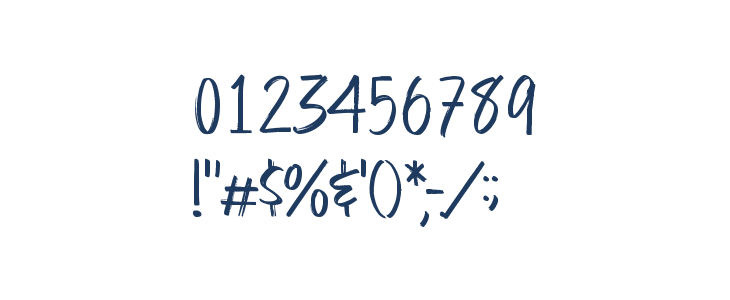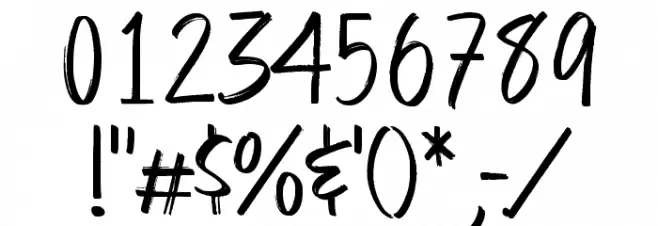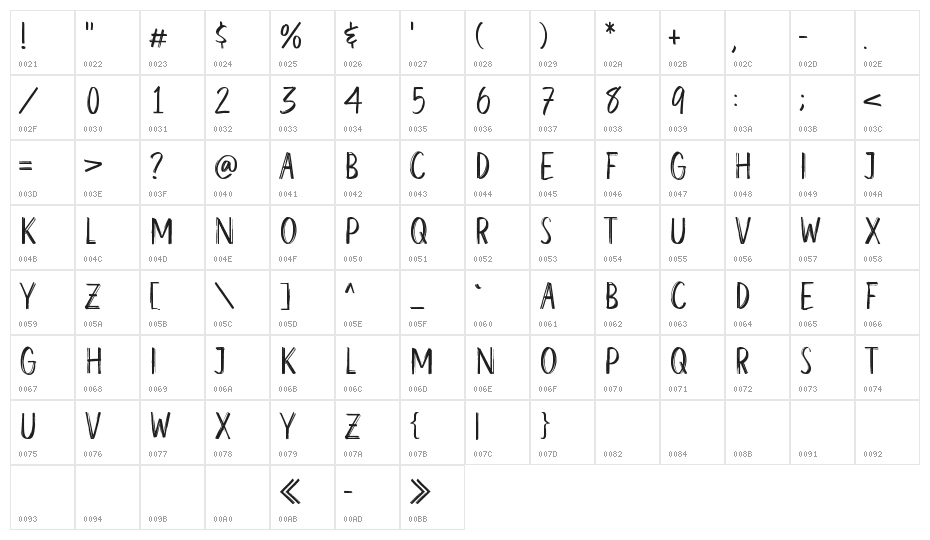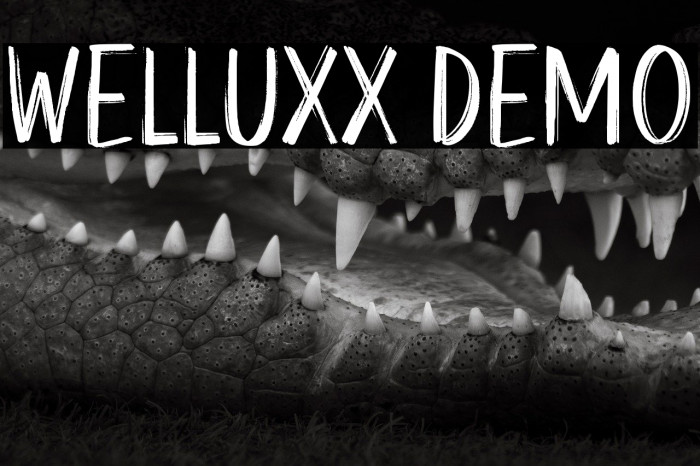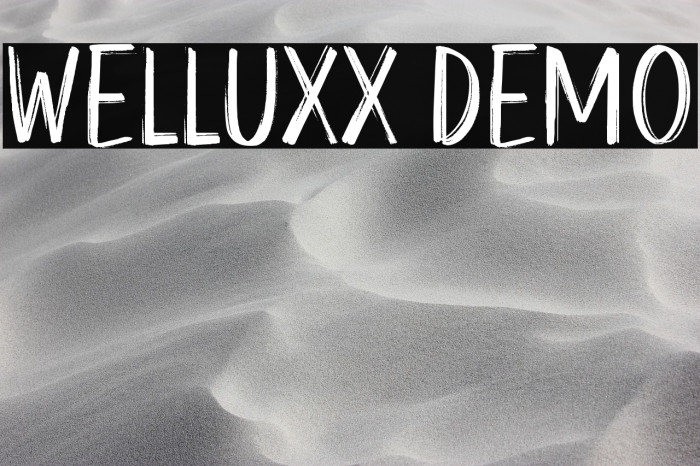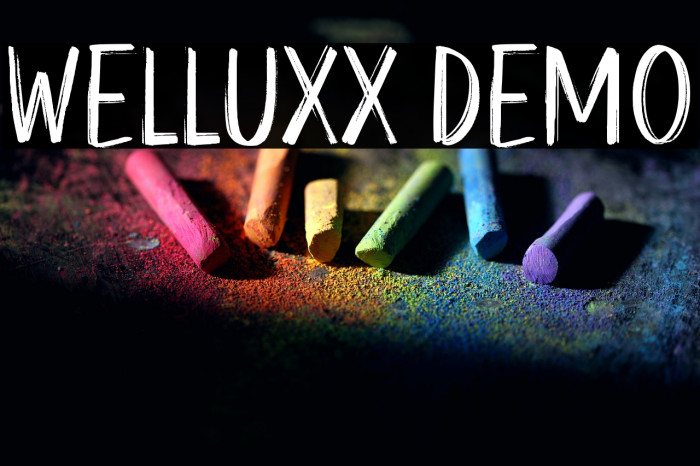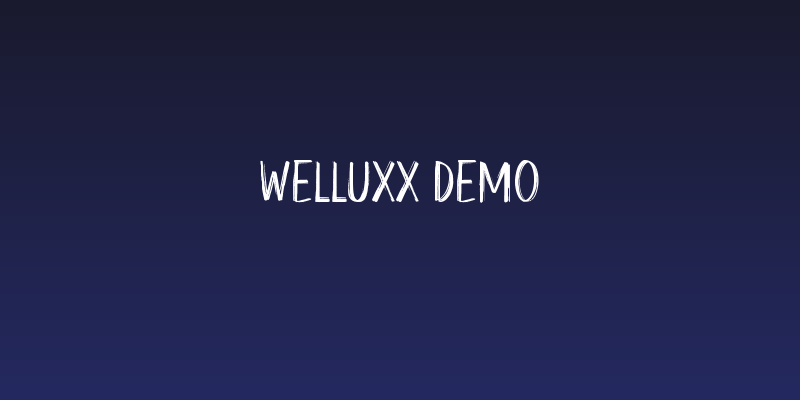
Welluxx Demo Font
Welluxx Demo Description
This font features a bold and expressive handwritten style, characterized by its uneven strokes and dynamic energy. The letters have a slightly rough texture, giving them a raw and authentic feel. The uppercase and lowercase letters maintain a consistent height, while the numbers and special characters complement the overall aesthetic. This font's unique personality makes it stand out, with each character exhibiting a playful yet edgy appearance. The strokes vary in thickness, adding to the font's lively and spontaneous character.